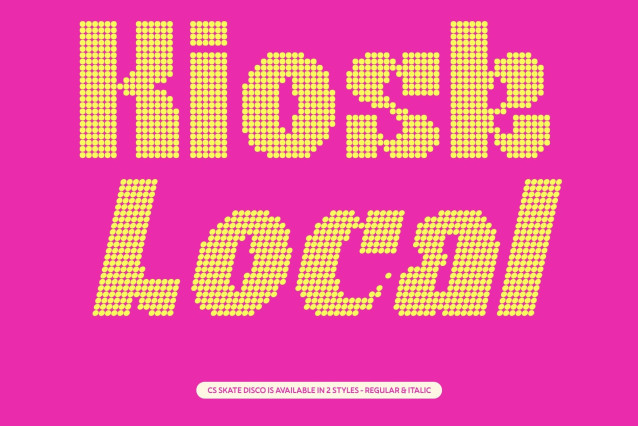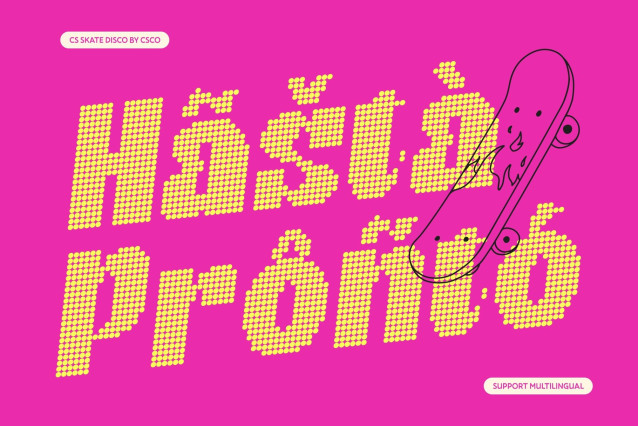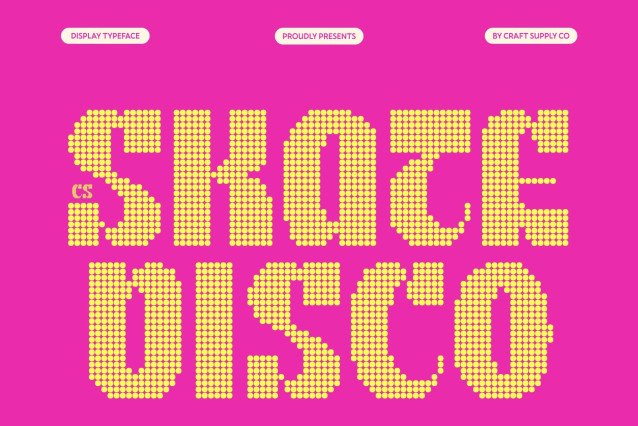
CS Skate Disco – Modern Sans Serif with Art Nouveau Flair in Dotted Motion
Bold Display Style with Artistic Presence
This is a bold display font that merges modern sans serif strength with the graceful flow of Art Nouveau design, now elevated with a vibrant dotted disco texture. The dotted detailing transforms its elegant forms into luminous typography that feels energetic, stylish, and visually captivating.
Graceful Curves Meet Contemporary Geometry
Inspired by Art Nouveau, this font features smooth, organic curves that soften its strong geometric structure. The disco dot texture enhances these flowing shapes, creating a sense of rhythm and movement that makes every letter feel alive and expressive.
Designed for Striking Visual Impact
With its bold presence and artistic detailing, this is perfect for headlines, branding, editorial layouts, and posters. The balance between precision and decorative flair ensures your typography stands out across both print and digital media.